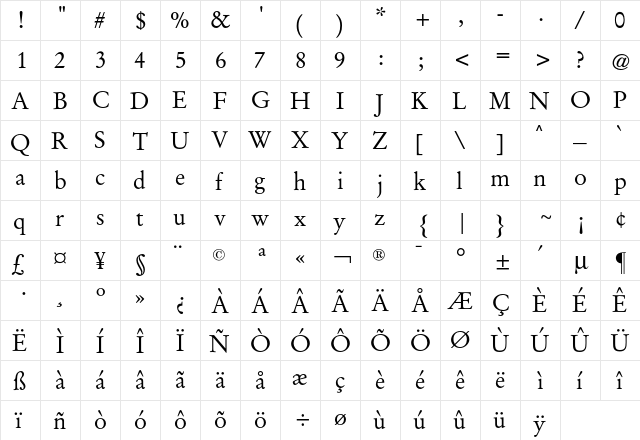
Garamond CG Regular
Design Context for Garamond CG Typeface
Garamond CG is a composed and adaptable typeface that performs quietly and consistently across a wide range of design contexts.